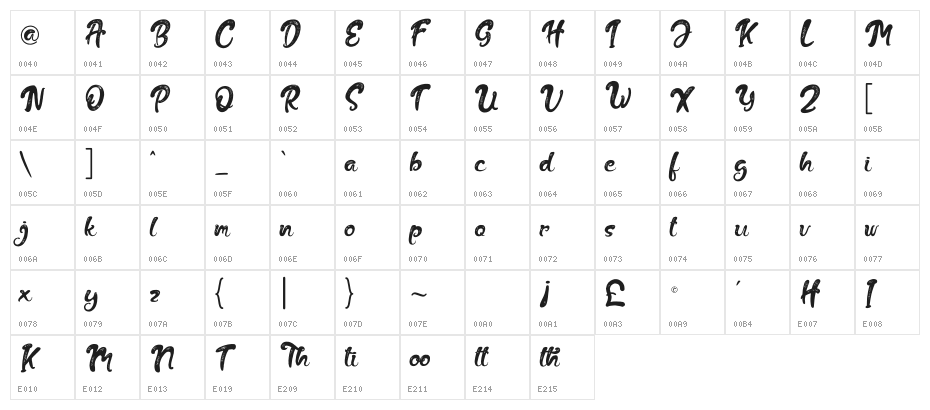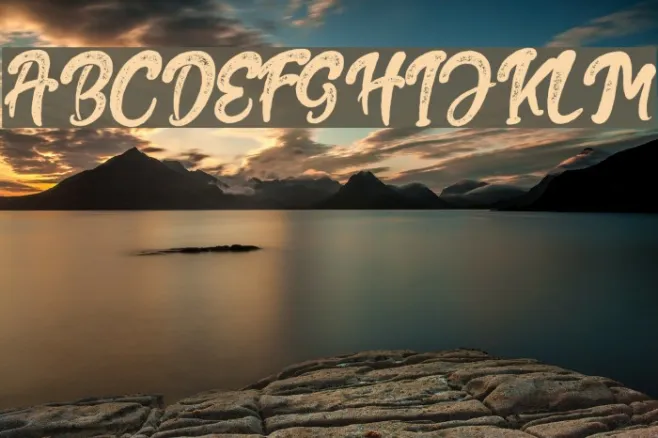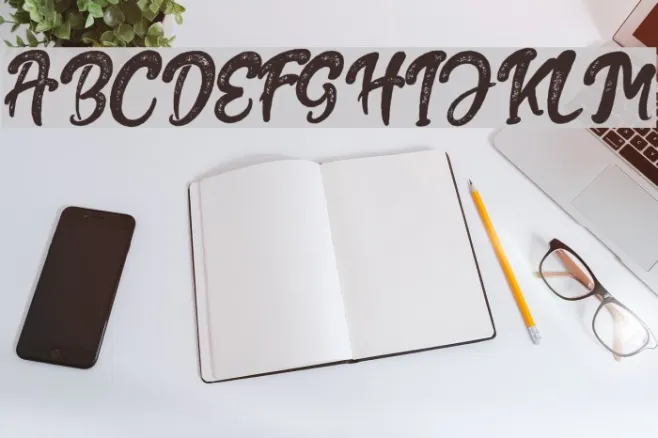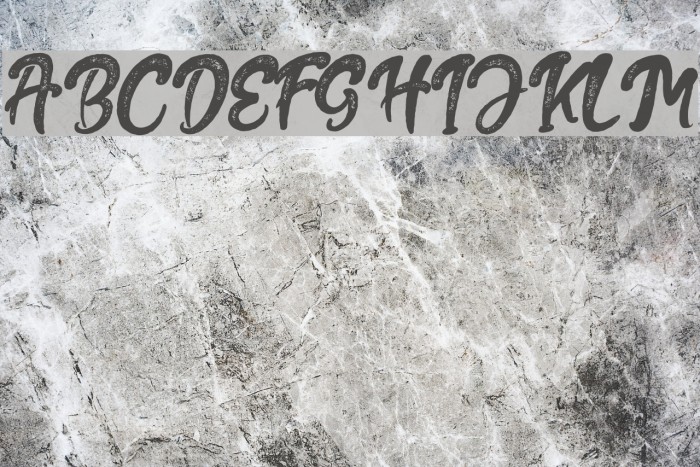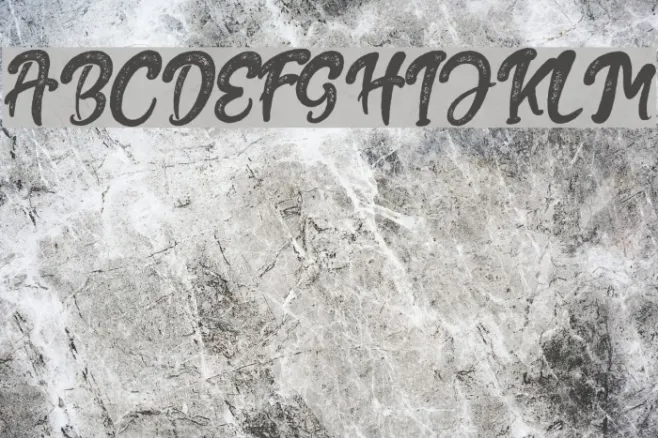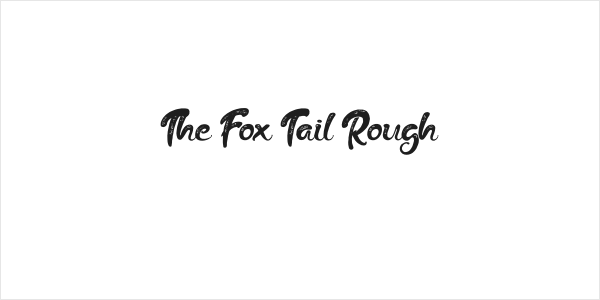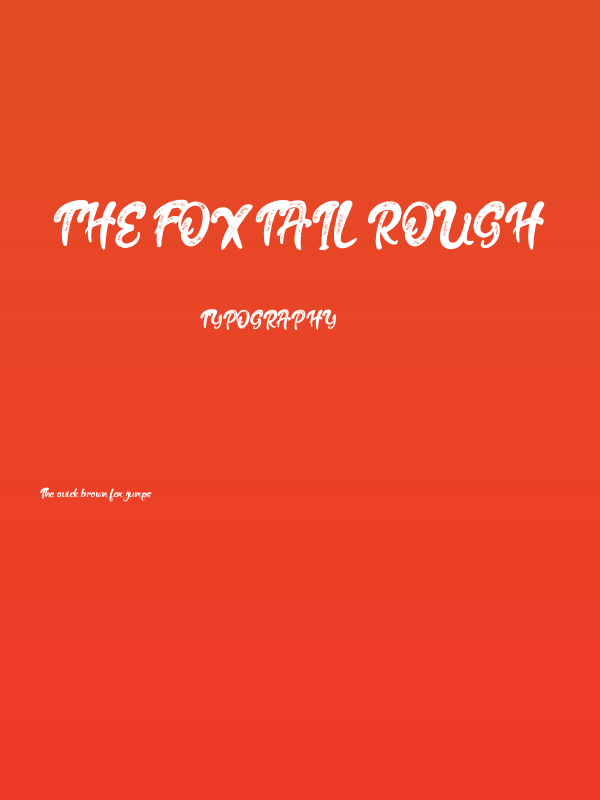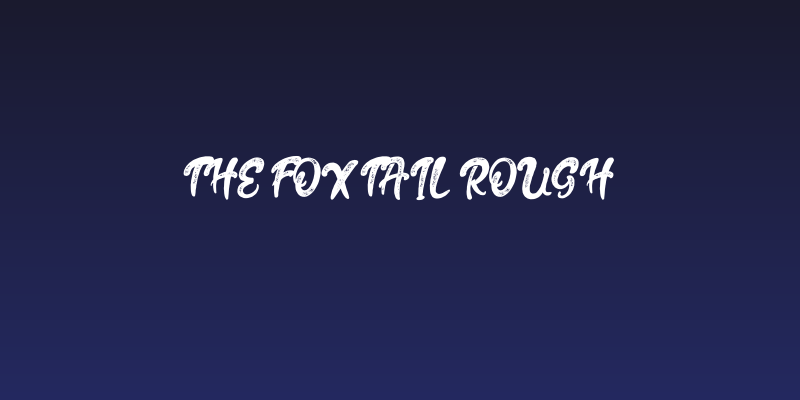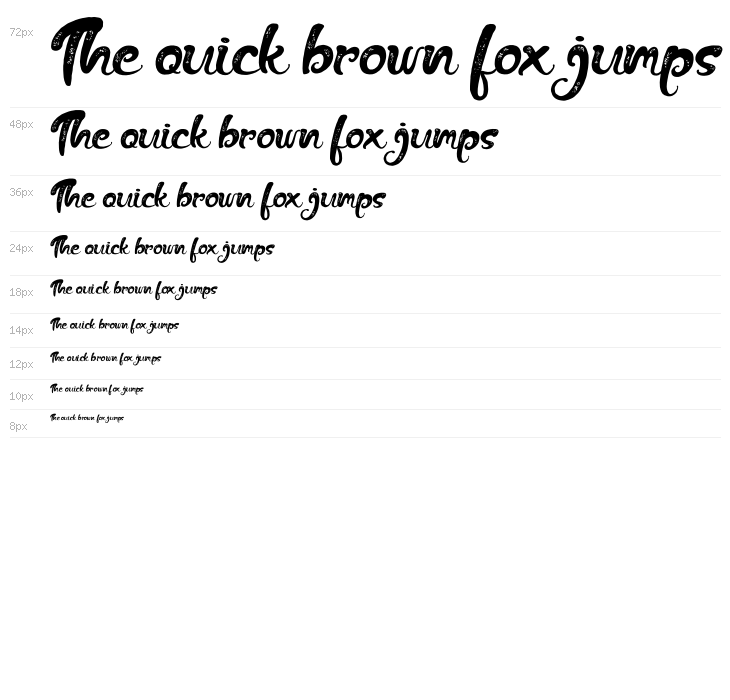
The Fox Tail Rough Font
The Fox Tail Rough Description
This font features a playful and rough texture, giving it a hand-drawn appearance. The letters have a whimsical, brush-like quality, with varying stroke thickness that adds to its dynamic and lively character. The uppercase letters are bold and prominent, while the lowercase letters maintain a consistent style, enhancing readability. The font's unique texture is reminiscent of a vintage or rustic style, making it stand out in any design. The special characters are consistent with the overall theme, adding versatility to its use.
| Proposed Projects | Ideal for creative projects such as posters, invitations, branding, and packaging design where a unique and artistic touch is desired. |